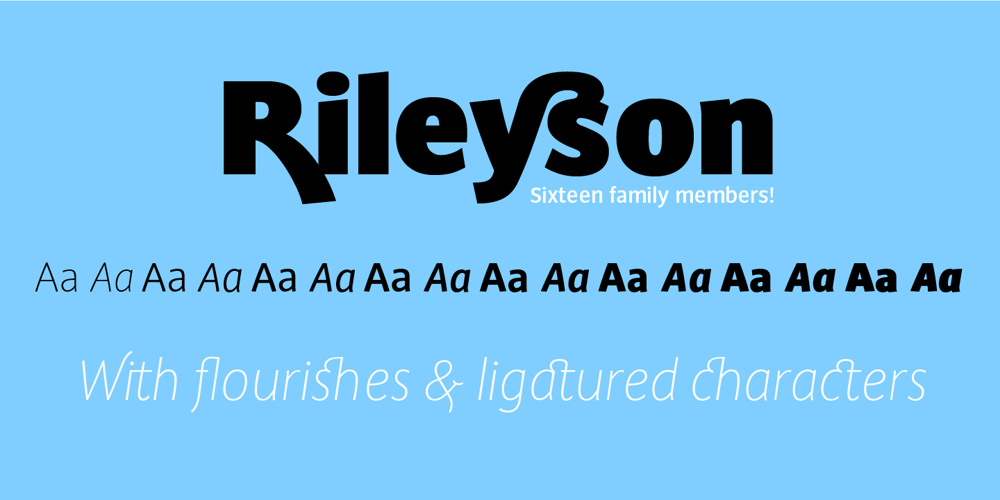
Rileyson
Rileyson font
Rileyson Font Family was designed by Adrian Williams and published by Club Type. Rileyson contains 16 styles and family package options. Crisp contemporary Sans-serif family useful for clear, clean corporates, stylish branding letterforms or friendly, casual messaging too, with use of its capital and lower case ligatures, swash capitals, old style numerals and many ornaments.